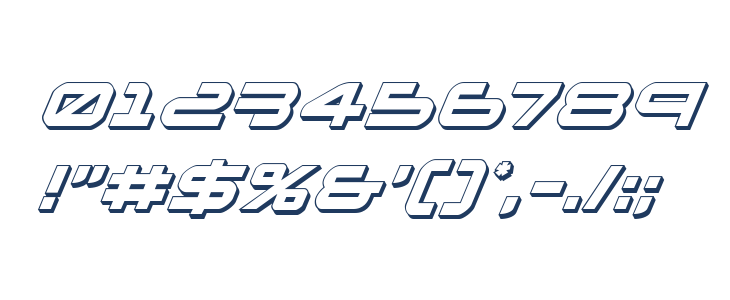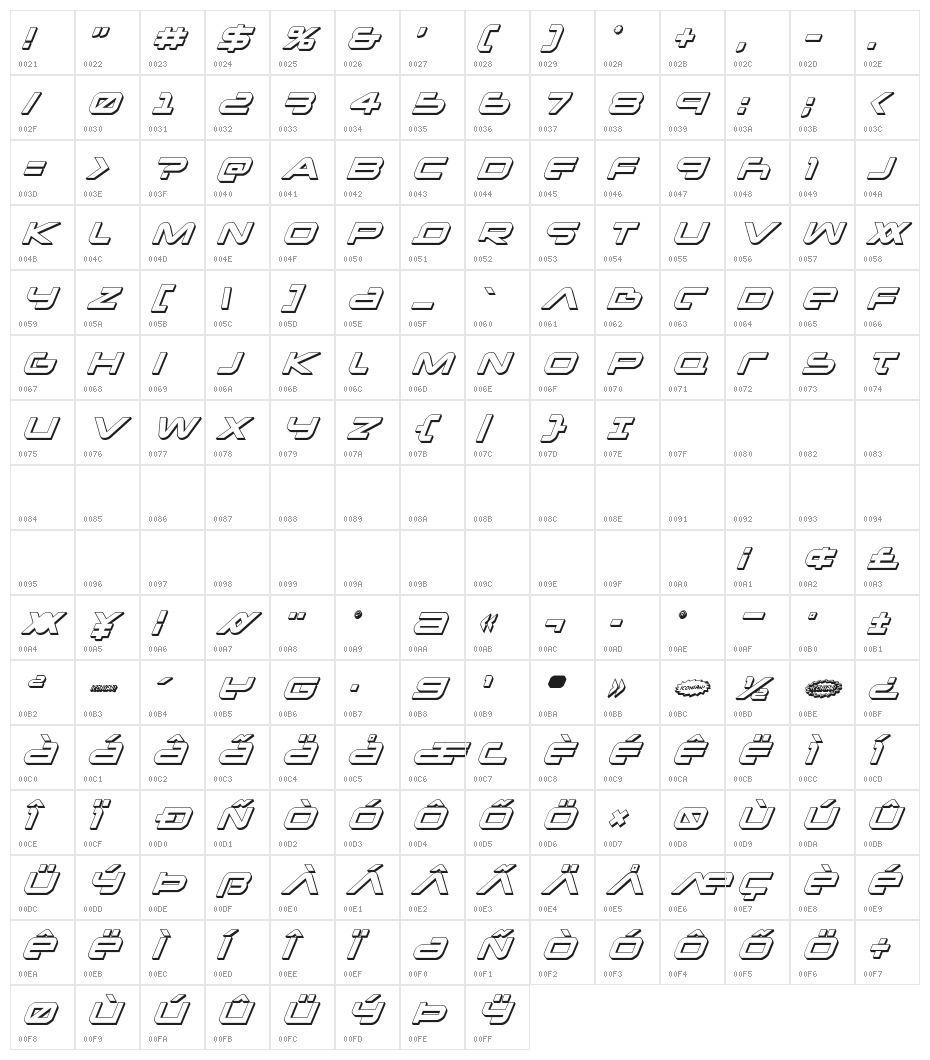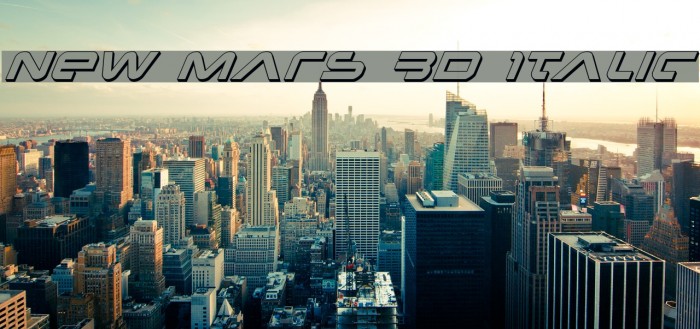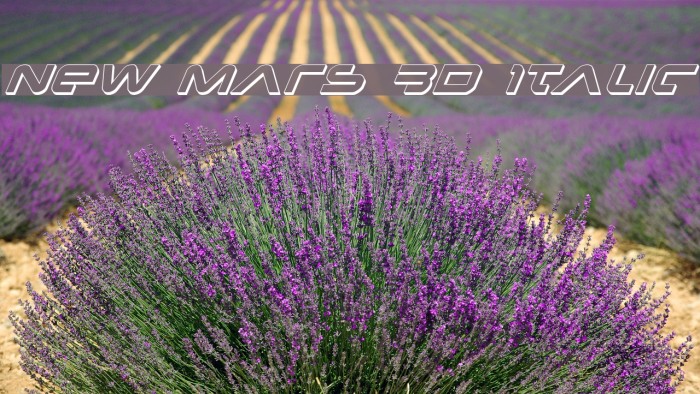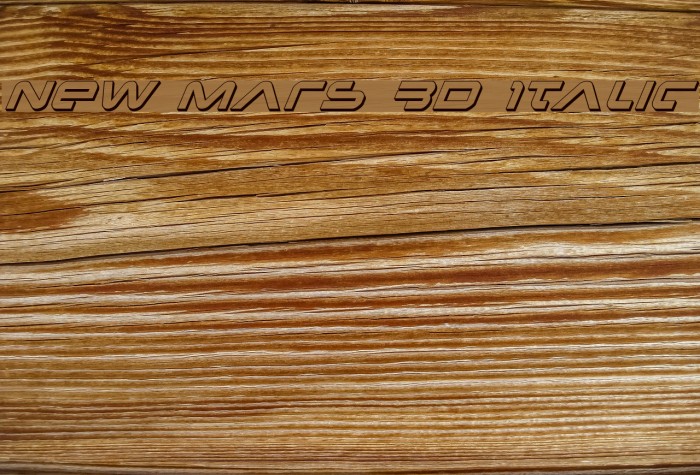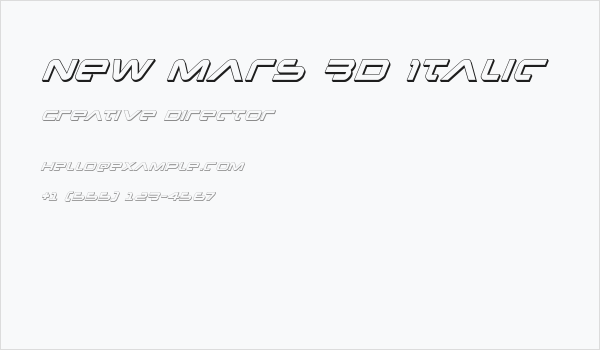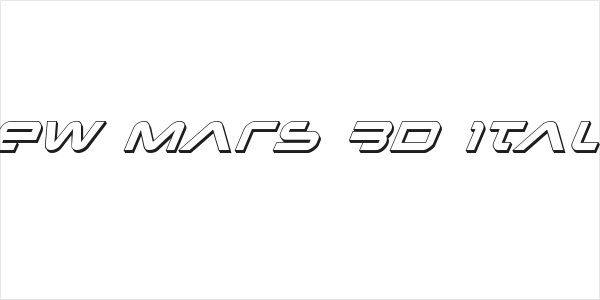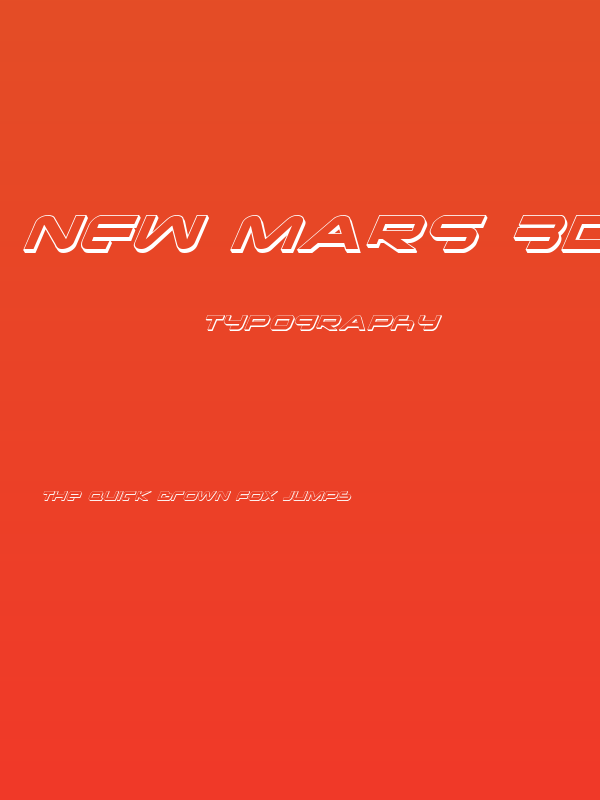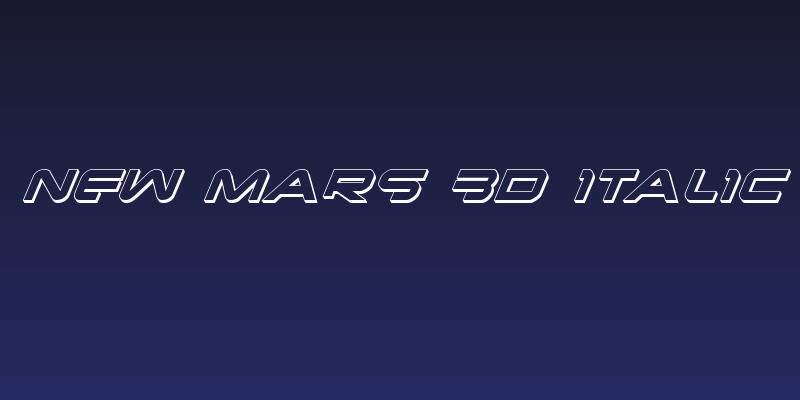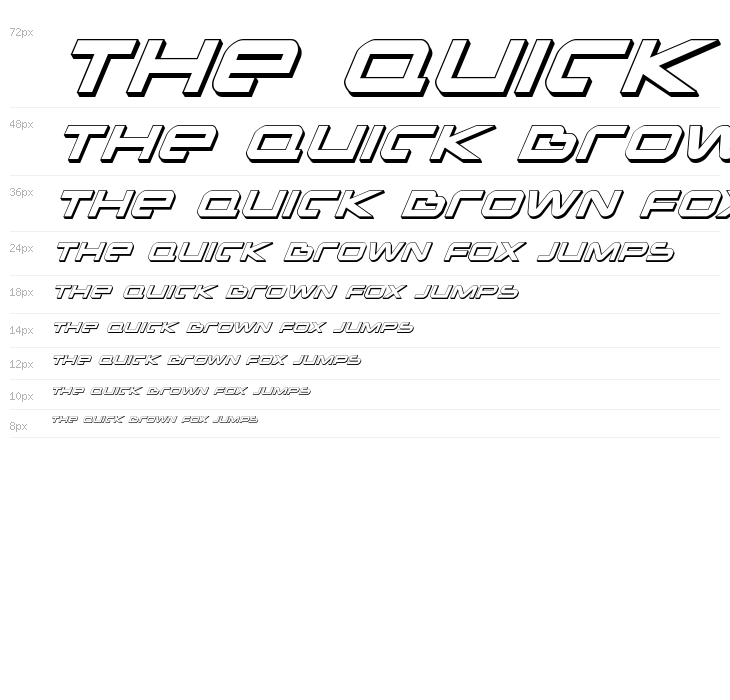
New Mars 3D Italic Font
New Mars 3D Italic Description
This font features a futuristic and dynamic 3D italic style, characterized by bold, angular lines and a sense of movement. The letters are designed with a shadow effect that gives them a three-dimensional appearance, enhancing their visual impact. The uppercase and lowercase letters maintain a consistent style, with sharp edges and a slanted orientation that suggests speed and modernity. The numerals and special characters follow the same design principles, ensuring a cohesive look across all elements. This font is particularly suitable for projects that aim to convey a sense of innovation and forward-thinking.